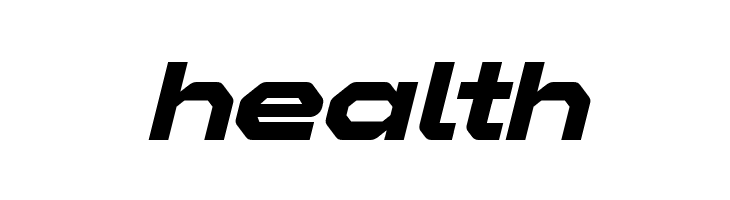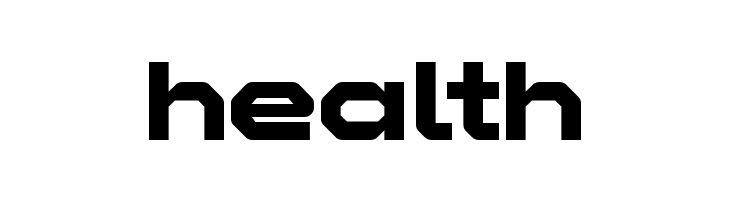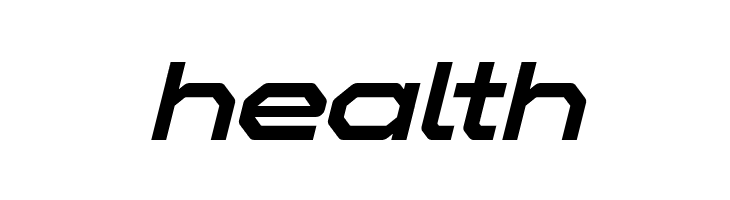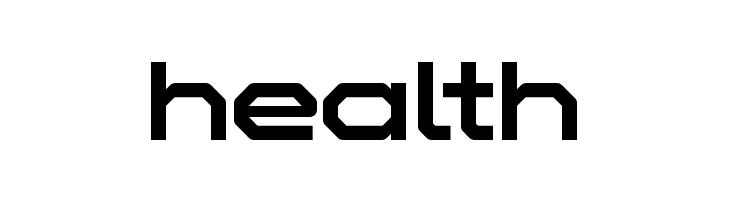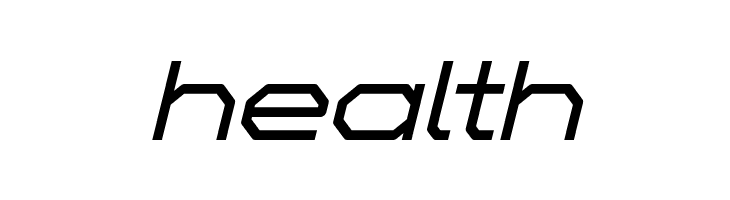
Zelta-Six Demo Bold Italic Font
A bold, italicized font with a futuristic, angular design.
Zelta-Six Demo Bold Font
A bold, geometric font with a futuristic, digital aesthetic.
Zelta-Six Demo Font
A geometric, futuristic font with angular, block-like letterforms.
Zelta-Six Demo Light Font
A geometric, futuristic font with angular and modular letterforms.
Zelta-Six Demo Italic Font
A modern, italicized font with a futuristic and dynamic design.
Zelta-Six Demo Light Italic Font
A futuristic, geometric, light italic font with angular lines and a tech-inspired style.